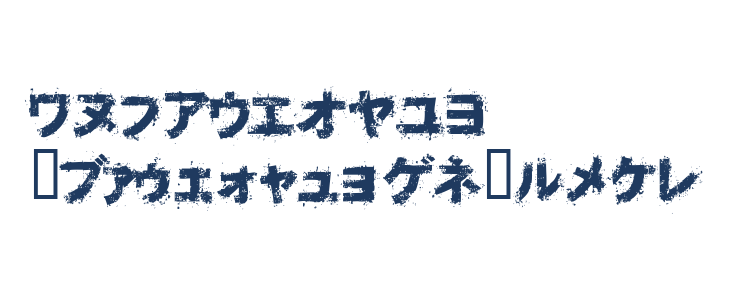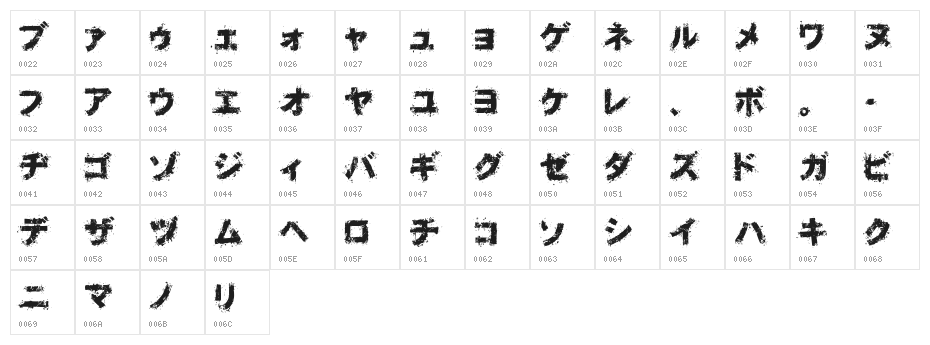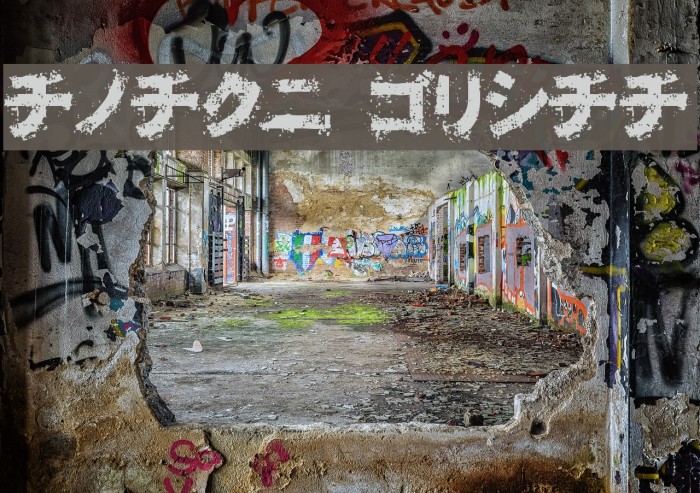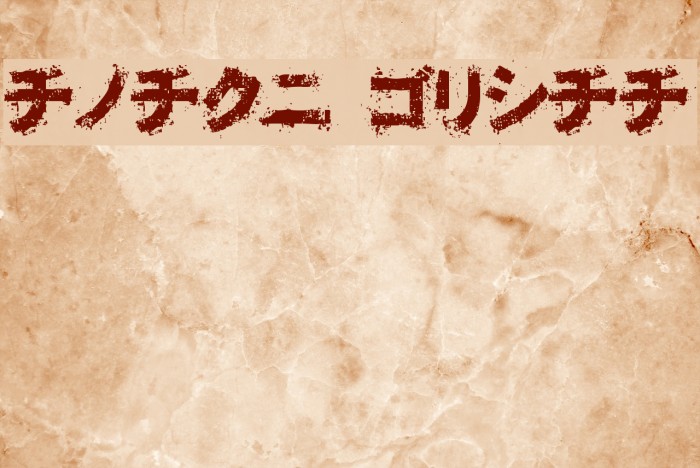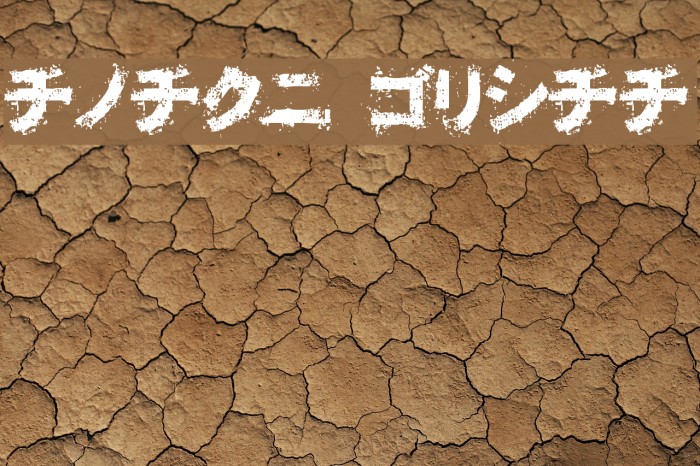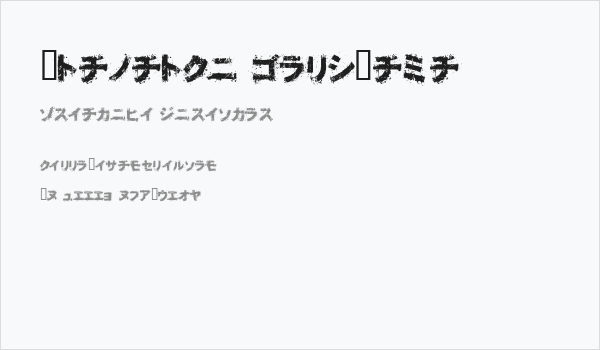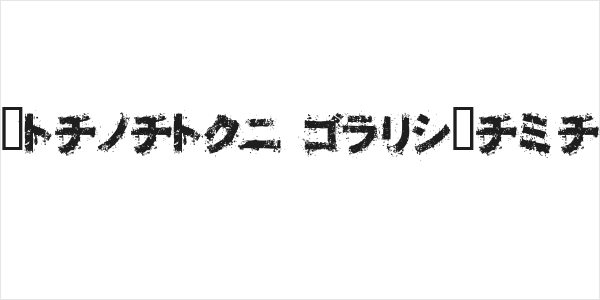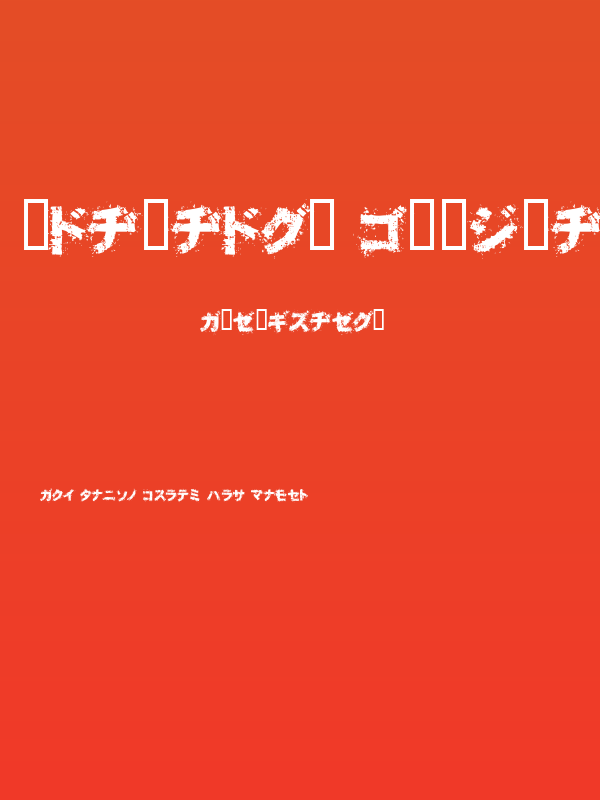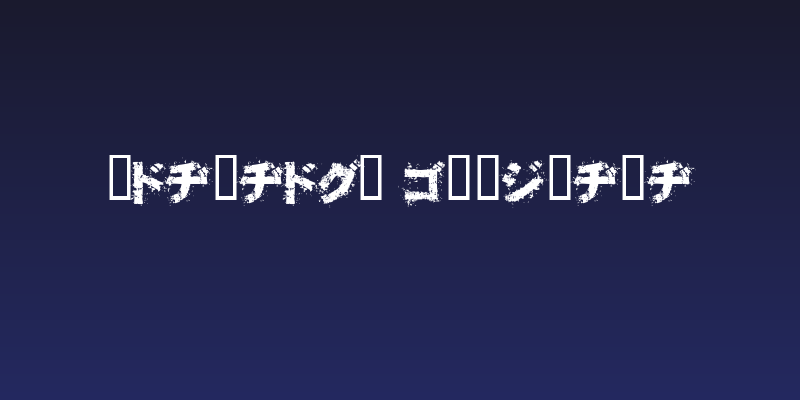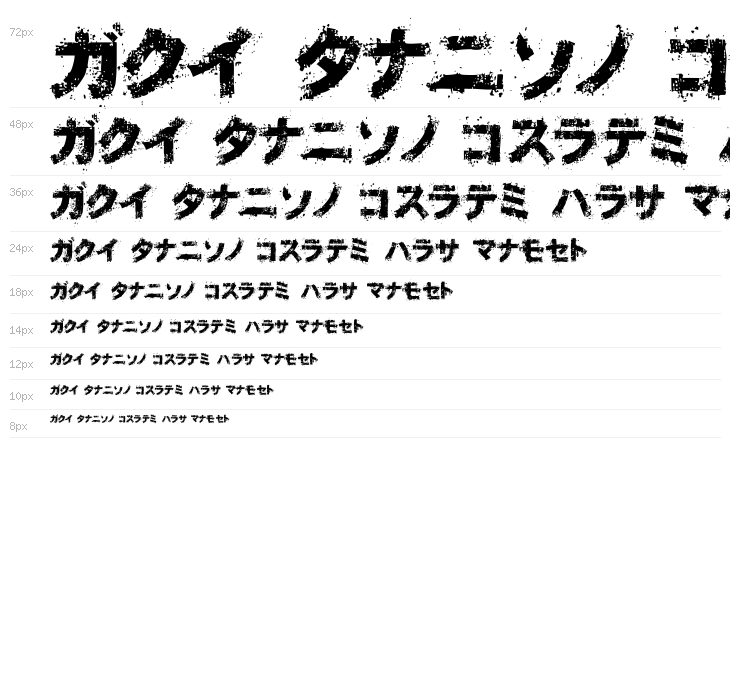
Osakashi BoldKana Font
Osakashi BoldKana Description
This font features a bold and textured appearance, reminiscent of a distressed or grunge style. The characters are heavily stylized with a rough, uneven texture that gives them a unique, worn look. The strokes are thick and irregular, creating a sense of movement and dynamism. This font is highly decorative, making it ideal for projects that require a strong visual impact. The overall style is modern with a touch of vintage, suitable for creative and artistic designs.
| Overall Style | Modern, Vintage |
| Proposed Projects | Ideal for posters, album covers, branding materials, and any design that requires a bold, artistic touch. |